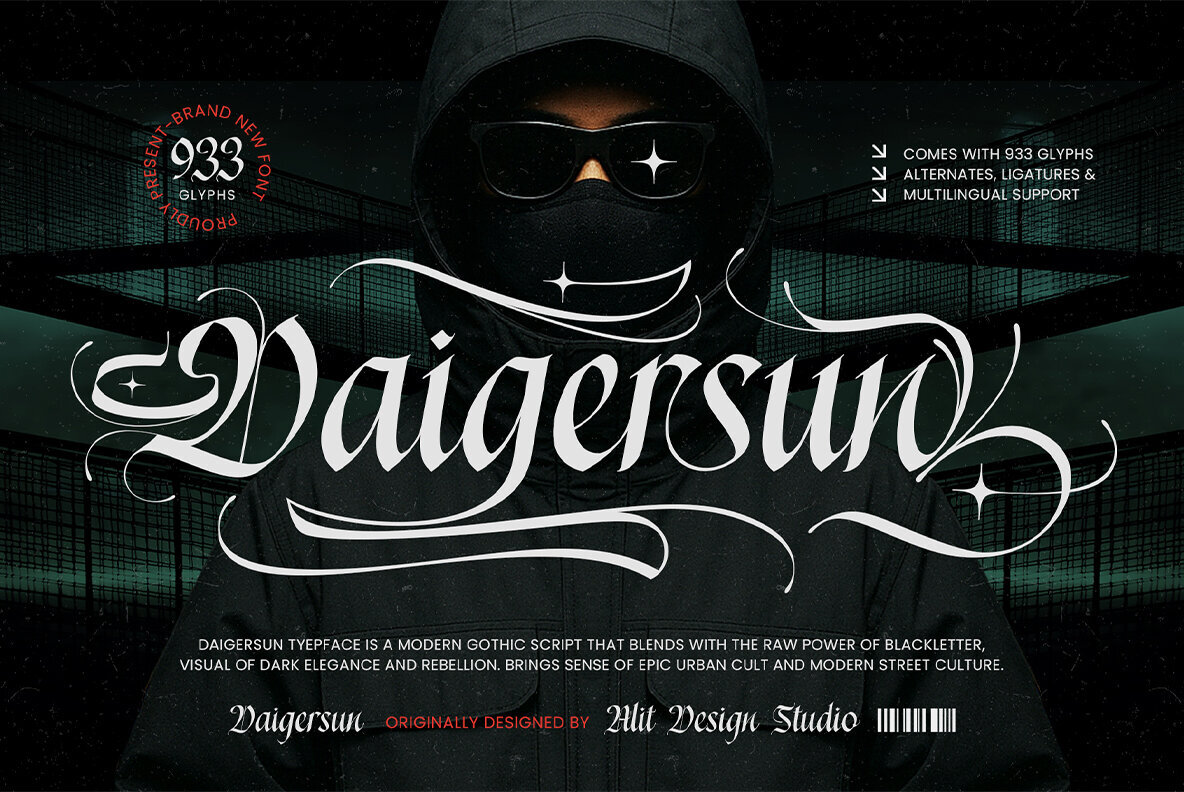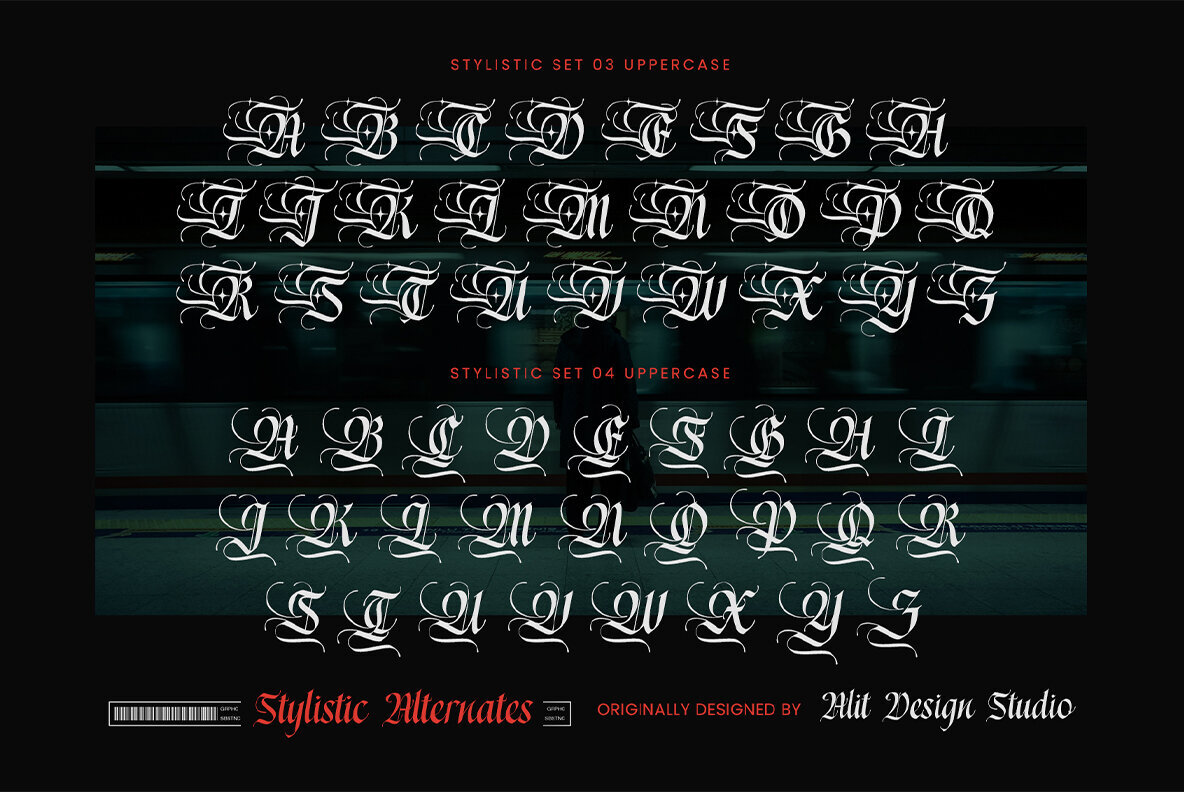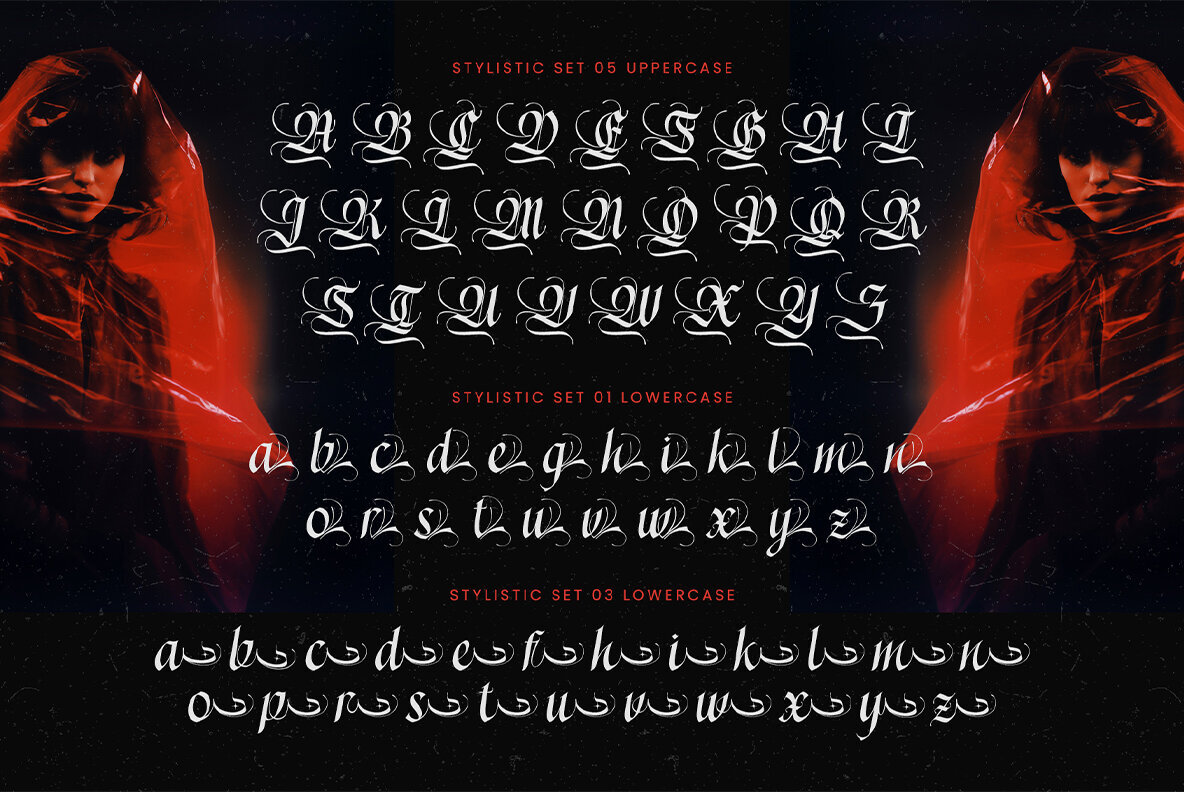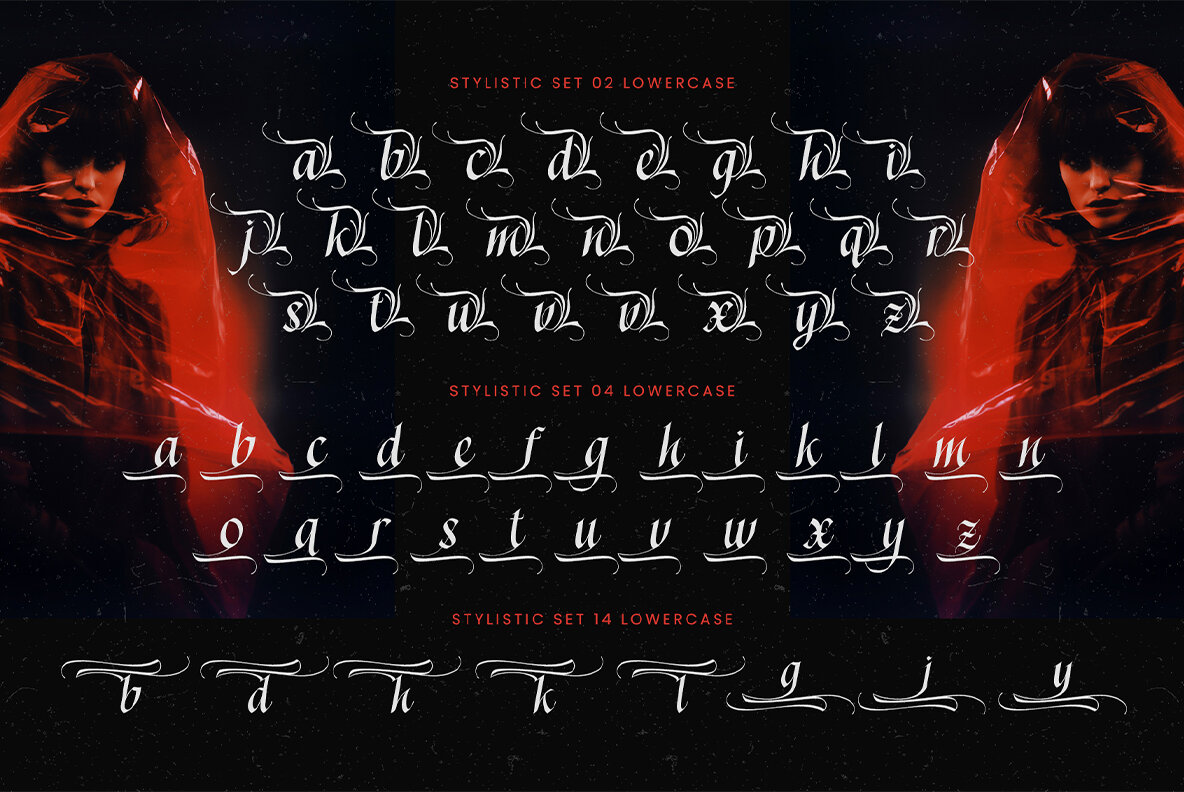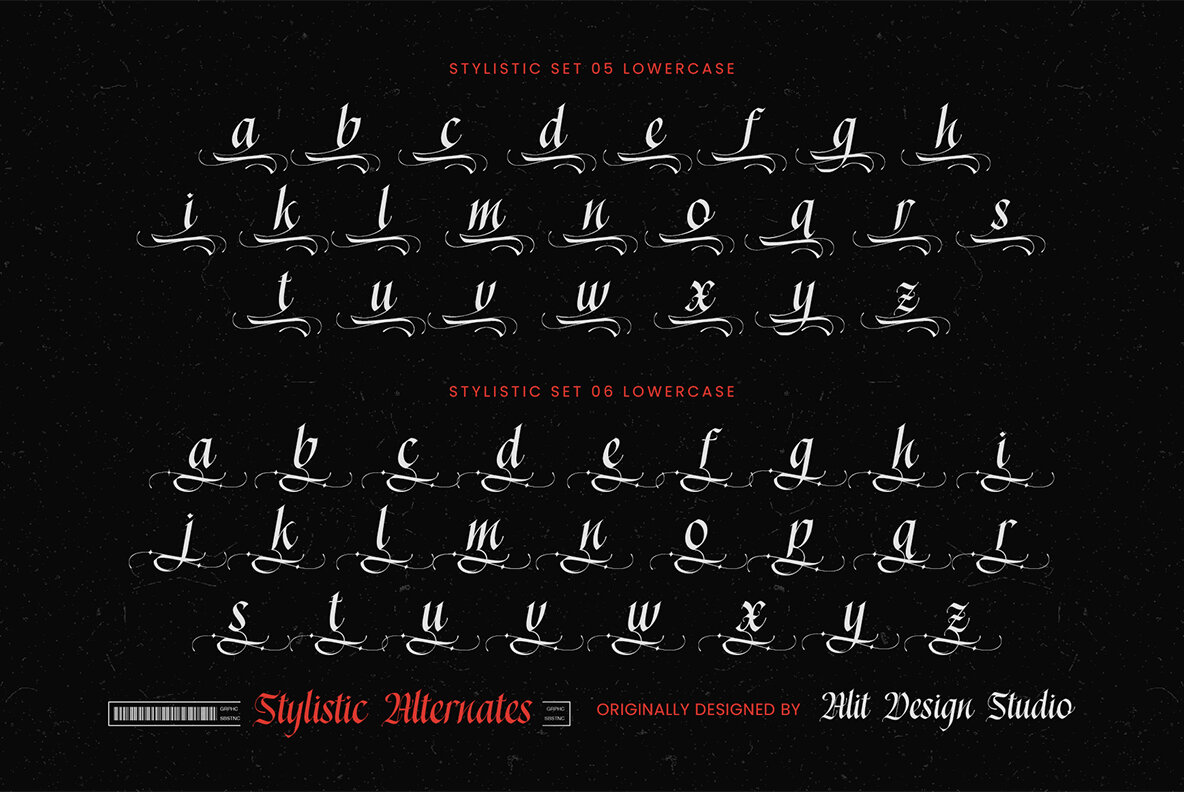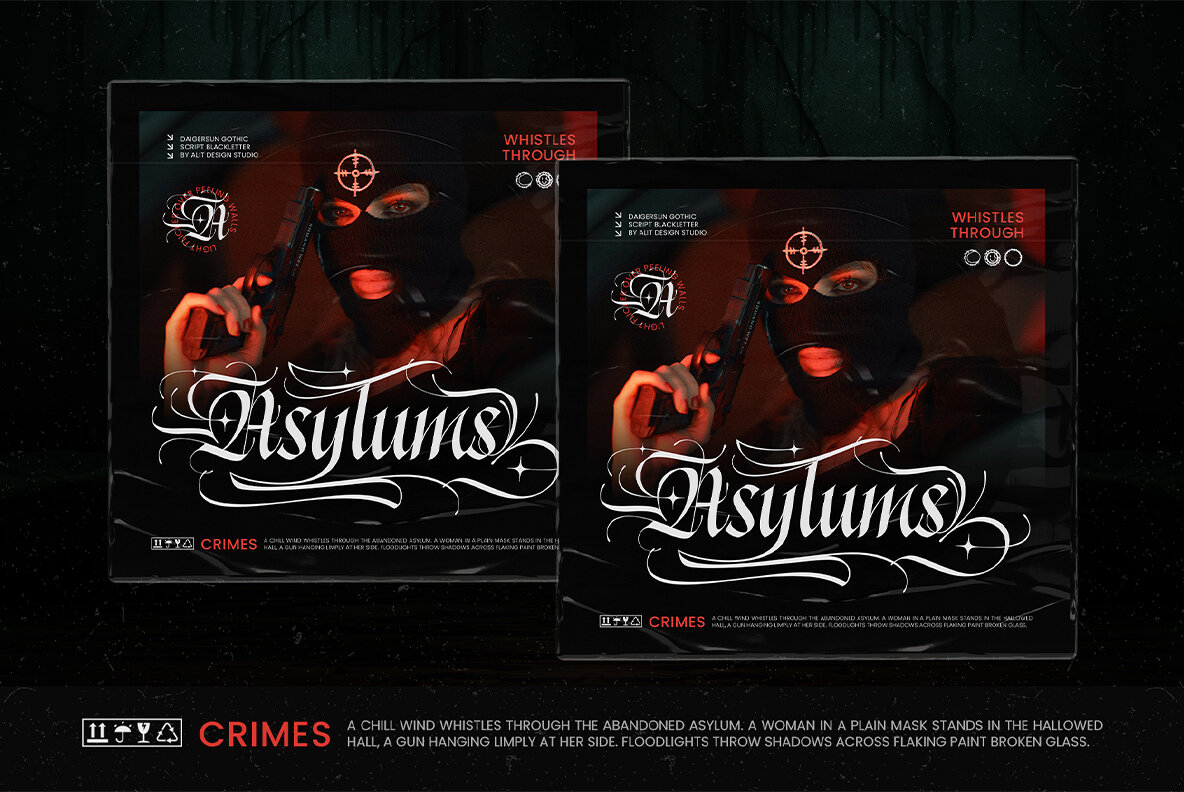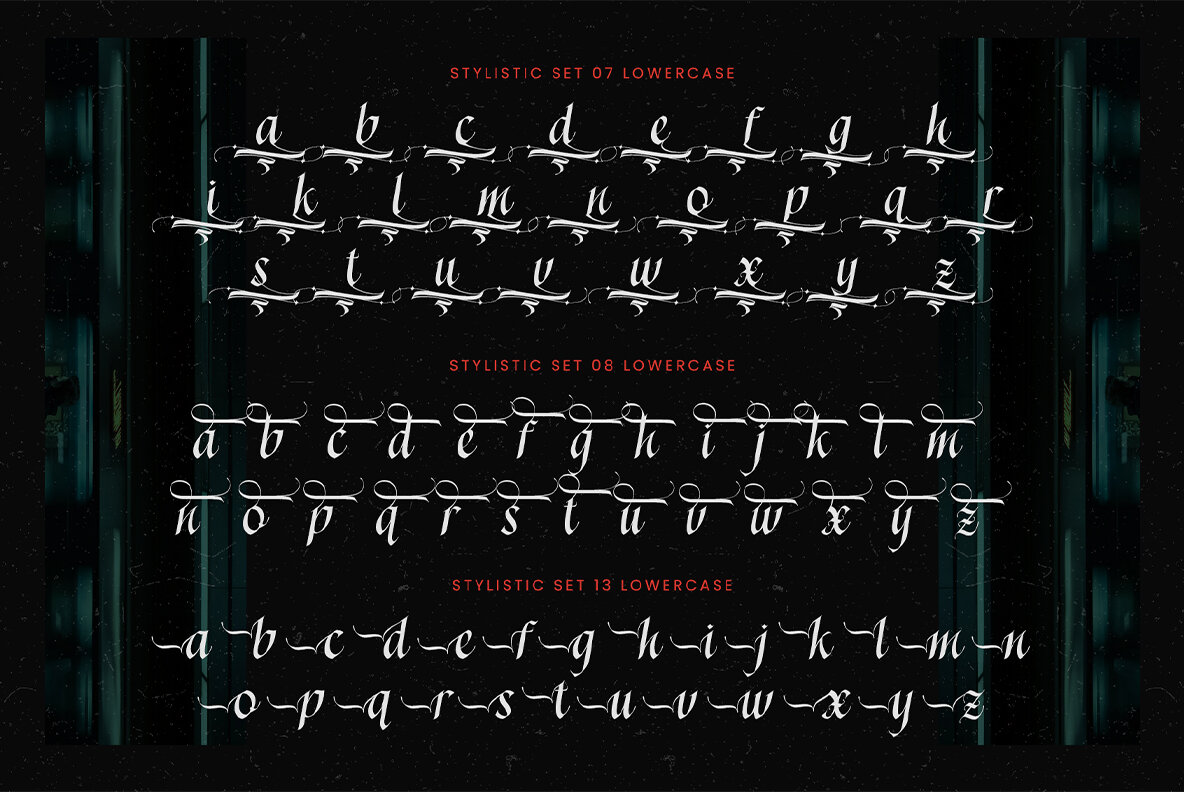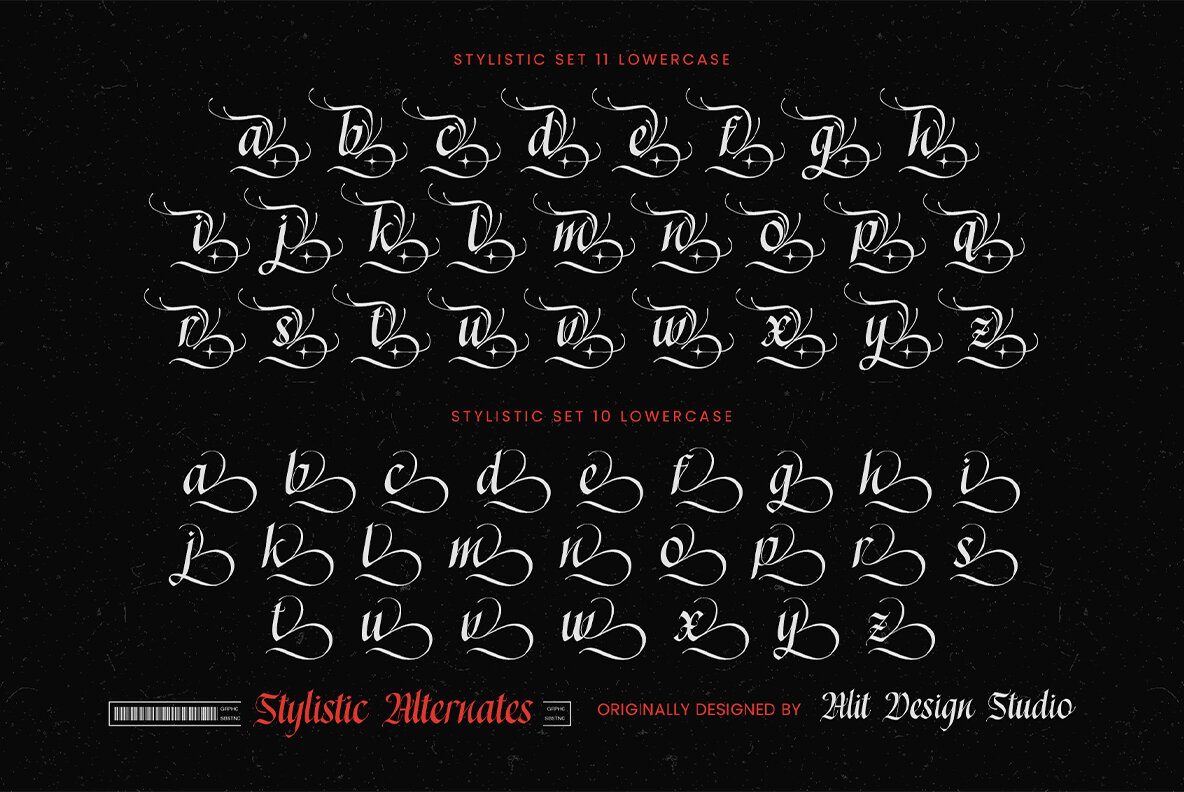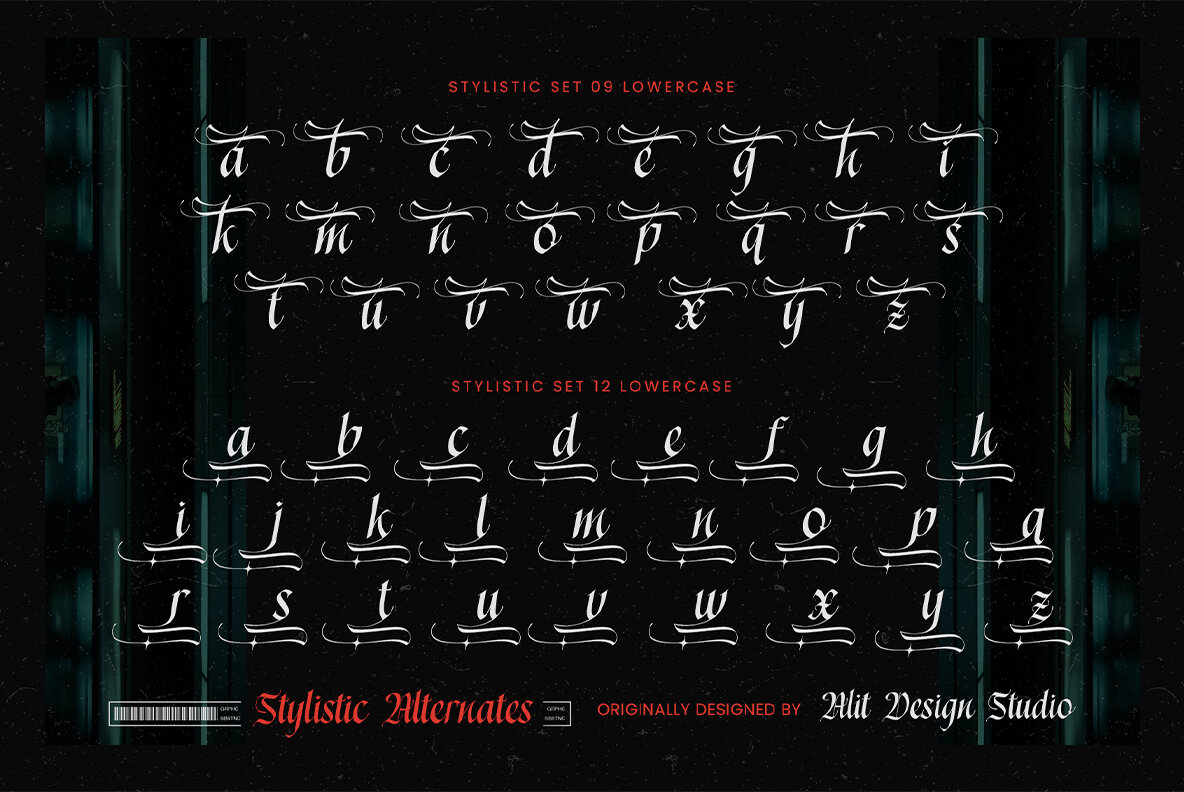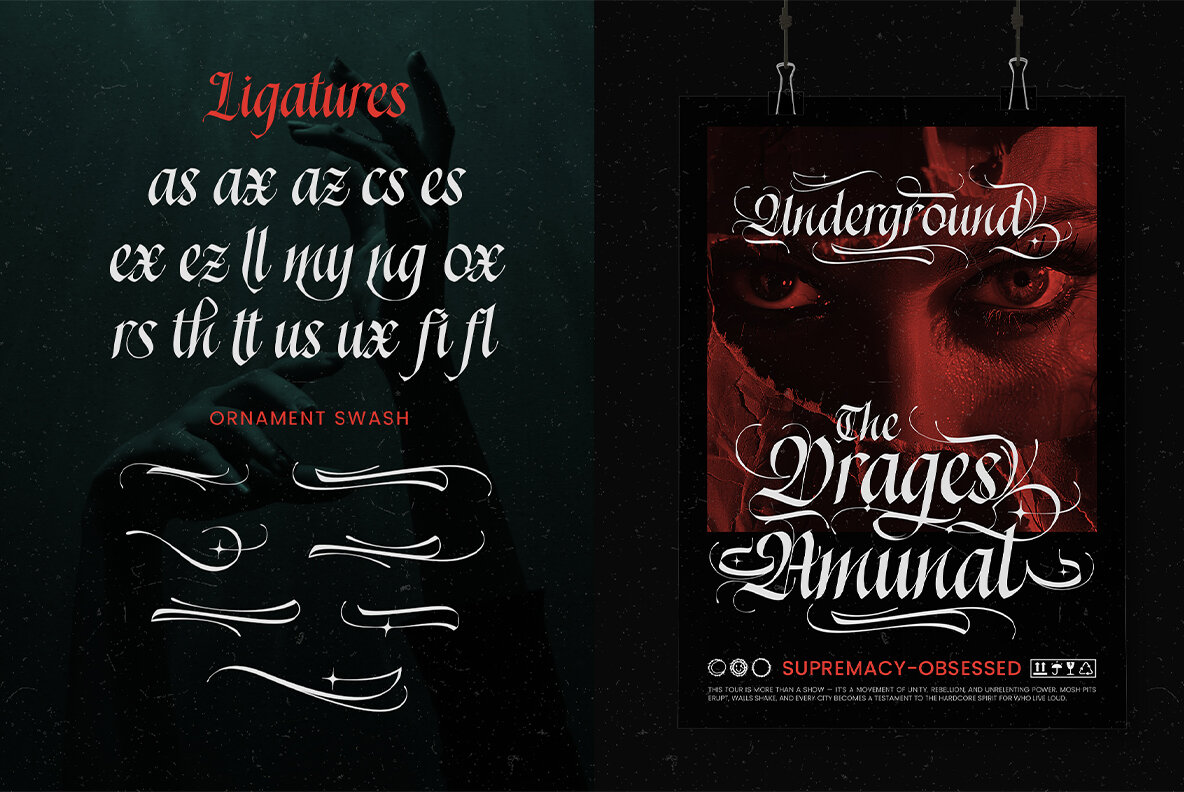
Daigersun Font
Daigersun Regular
Experience the striking balance of powerful boldness and refined elegance with Daigersun, a typeface that challenges convention. Drawing inspiration from urban culture, Daigersun combines the formidable presence of blackletter with the fluid sophistication of modern scripts. This font transforms your design into a powerful statement. Daigersun embodies duality—it's fierce yet sophisticated, gritty yet ornate. Each letter is meticulously crafted with sharp lines giving way to flowing swashes. This versatility makes it ideal for designers seeking a unique, standout look. With an impressive array of over 933 glyphs, including stylistic alternates, ligatures, and multilingual characters, Daigersun offers immense creative flexibility. Easily switch between styles to create designs ranging from bold to intricate. Features: Applications: Embrace the extraordinary. Daigersun enriches your projects with its bold character and refined aesthetic.Daigersun Typeface: Bold Style Meets Elegance